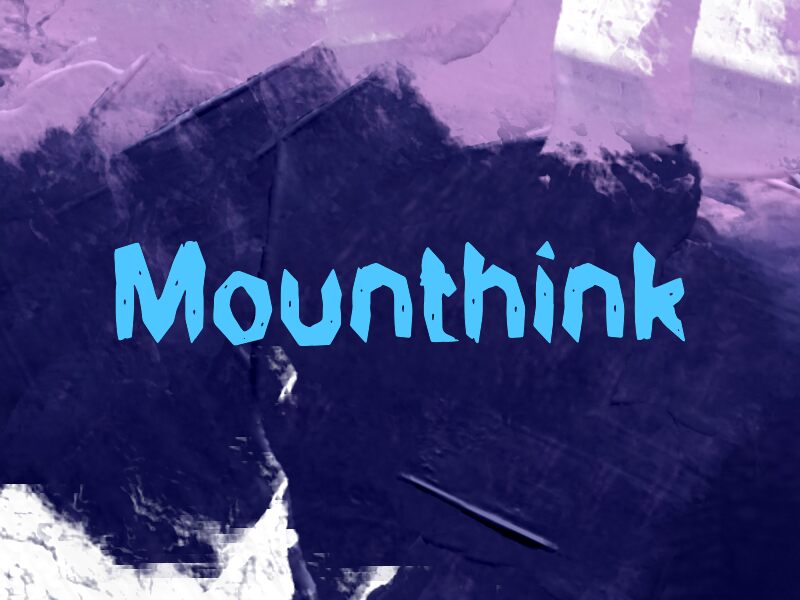
Mounthink by Wep is a free rough-hewn display font with a hand-cut, stone-age feel. The letters look chipped and uneven, with bulky silhouettes, sharp notches, and slightly awkward curves that make the whole design feel carved rather than drawn.
It fits poster titles, game logos, event flyers, album covers, and packaging that wants something raw and handmade; as a free font, it also works well for short headlines or title cards where those jagged edges can do the talking. This is not a neat, polished display style - it has the blunt rhythm of marks hacked into wood or rock, which gives even a single word a strong mood.
Mounthink